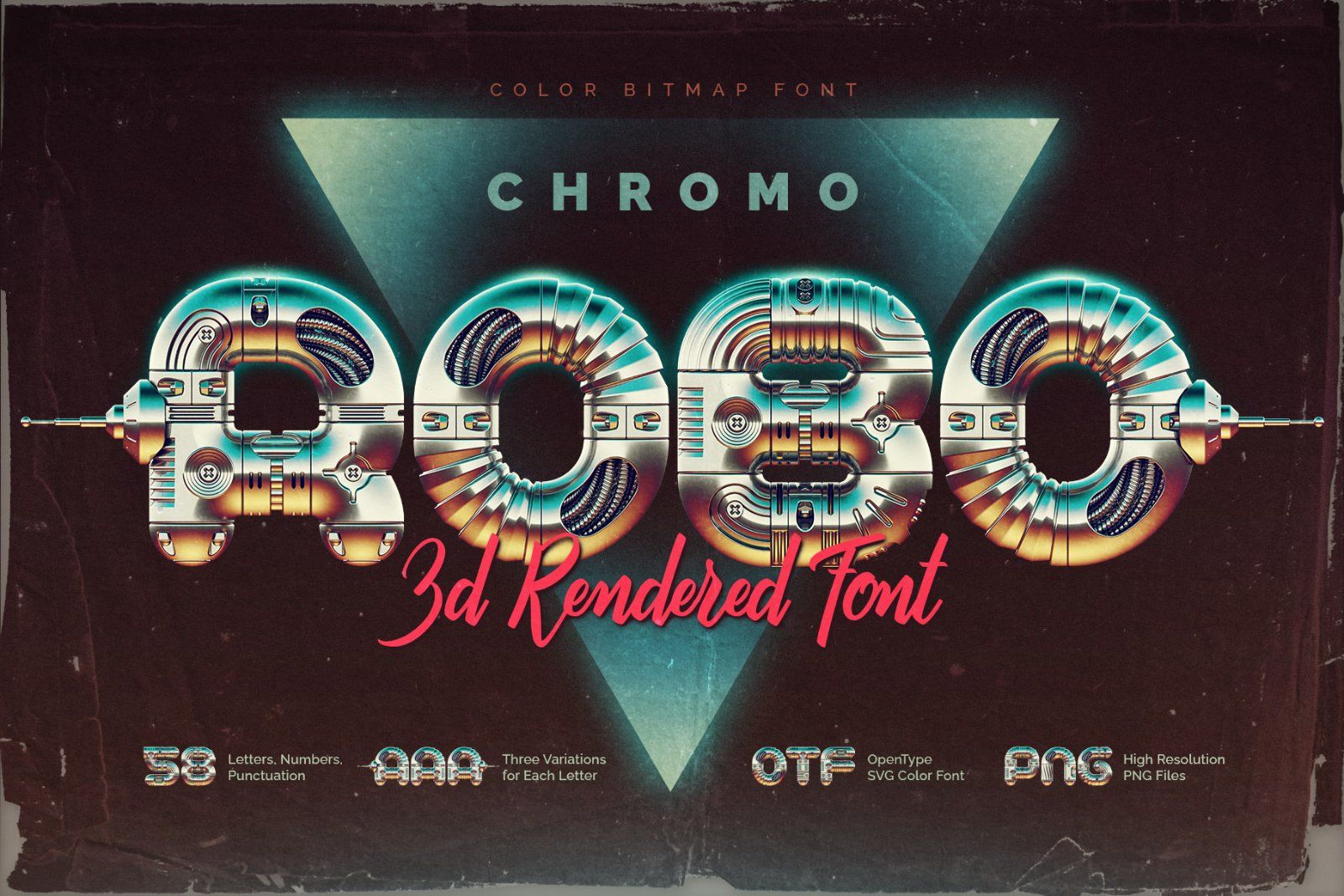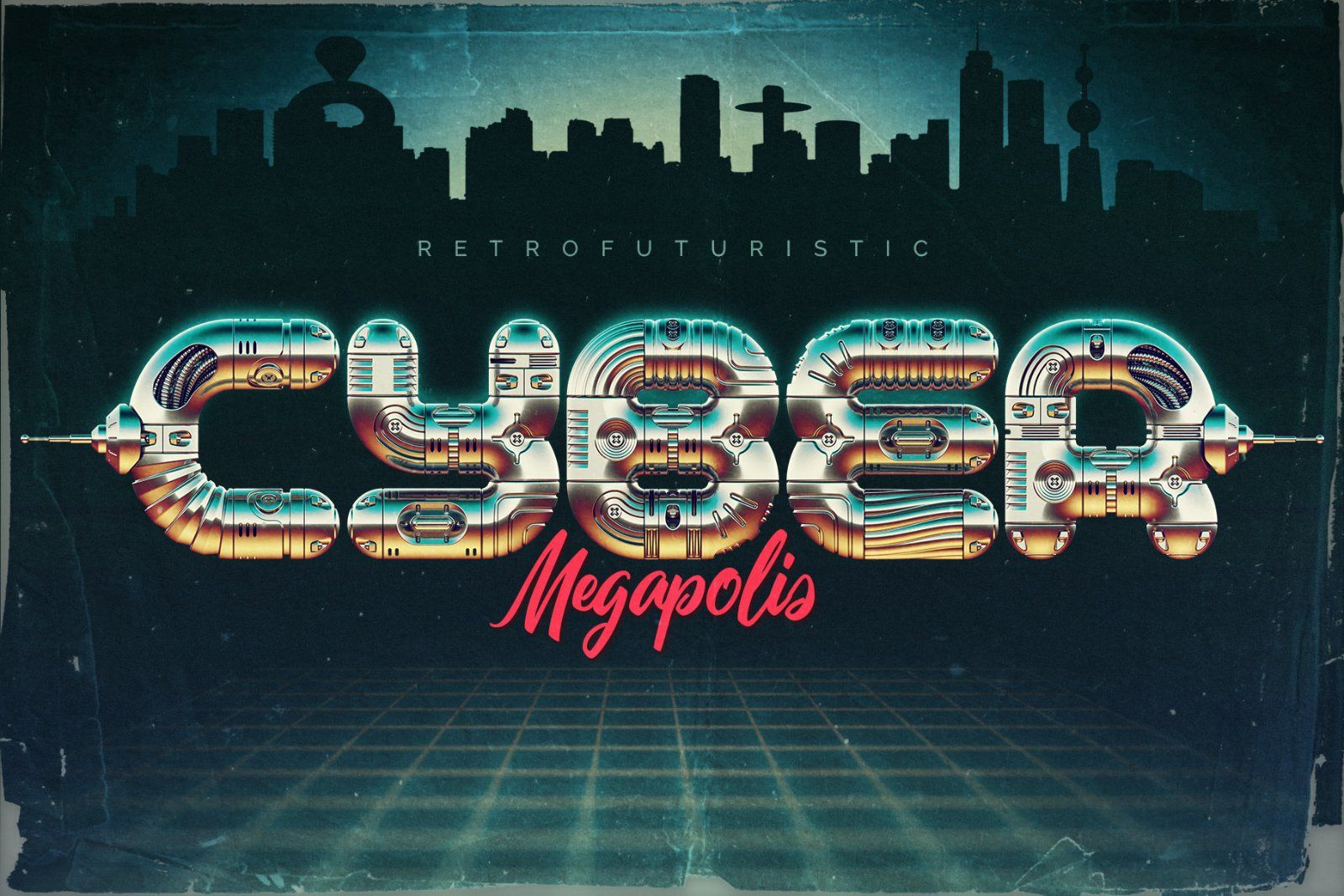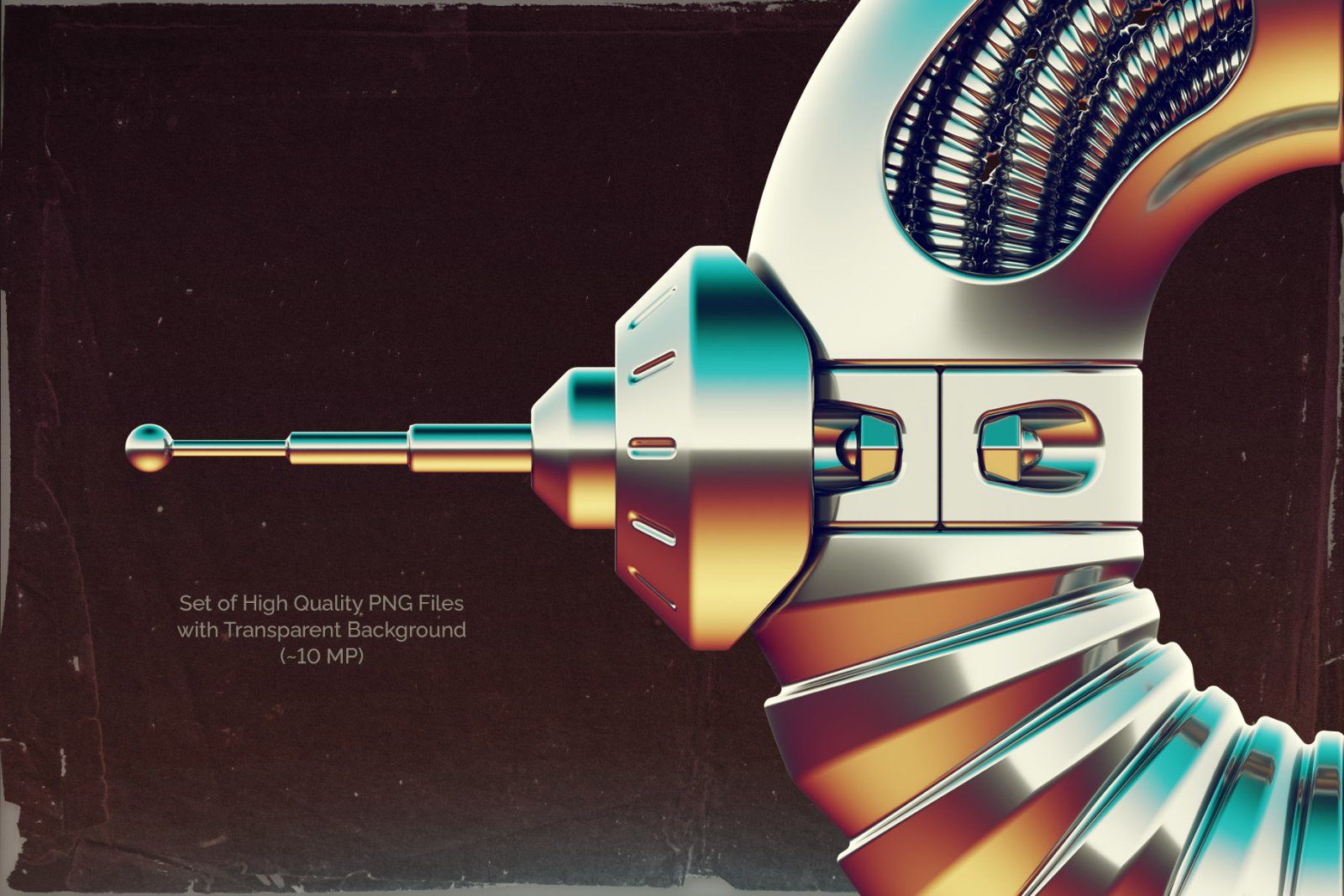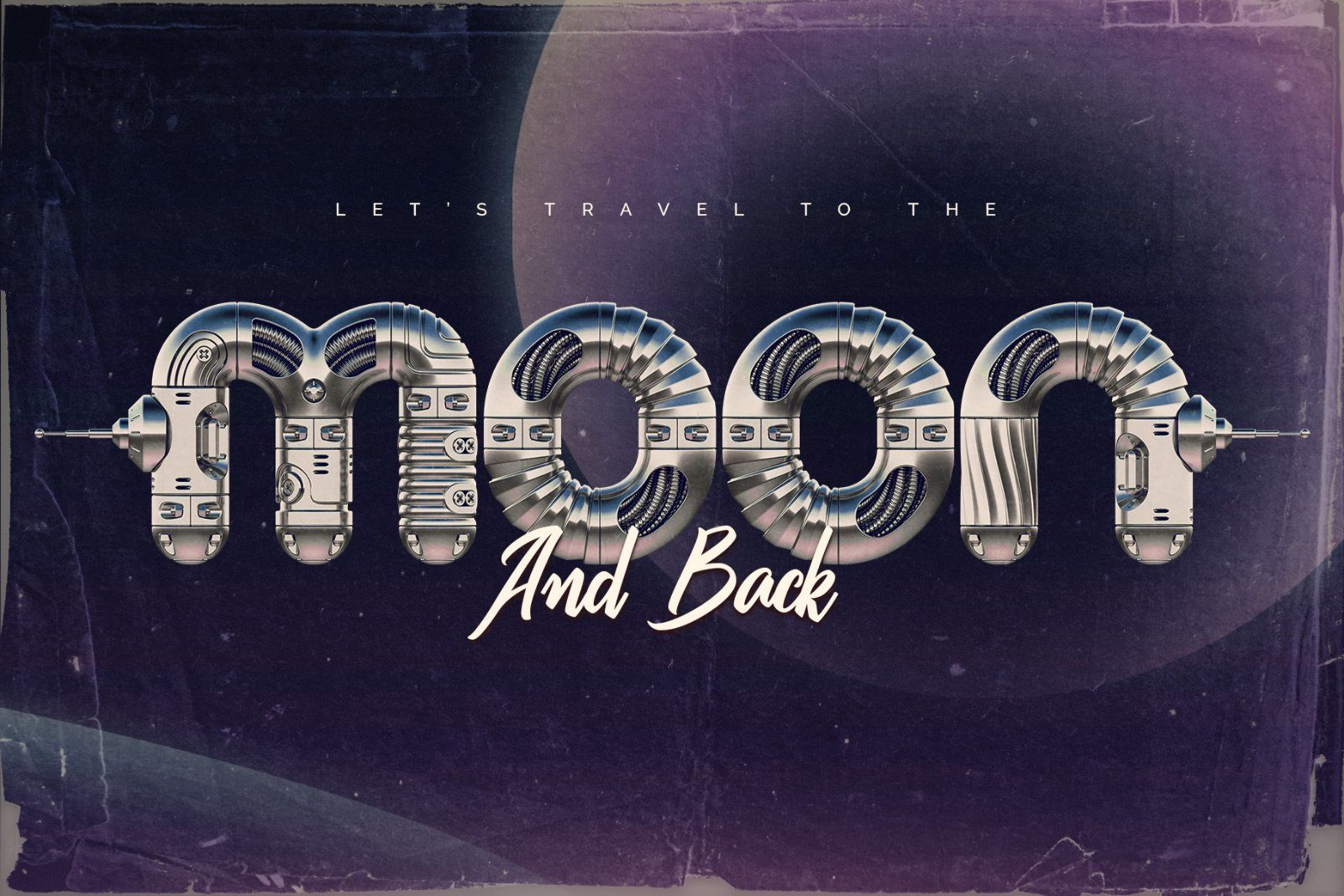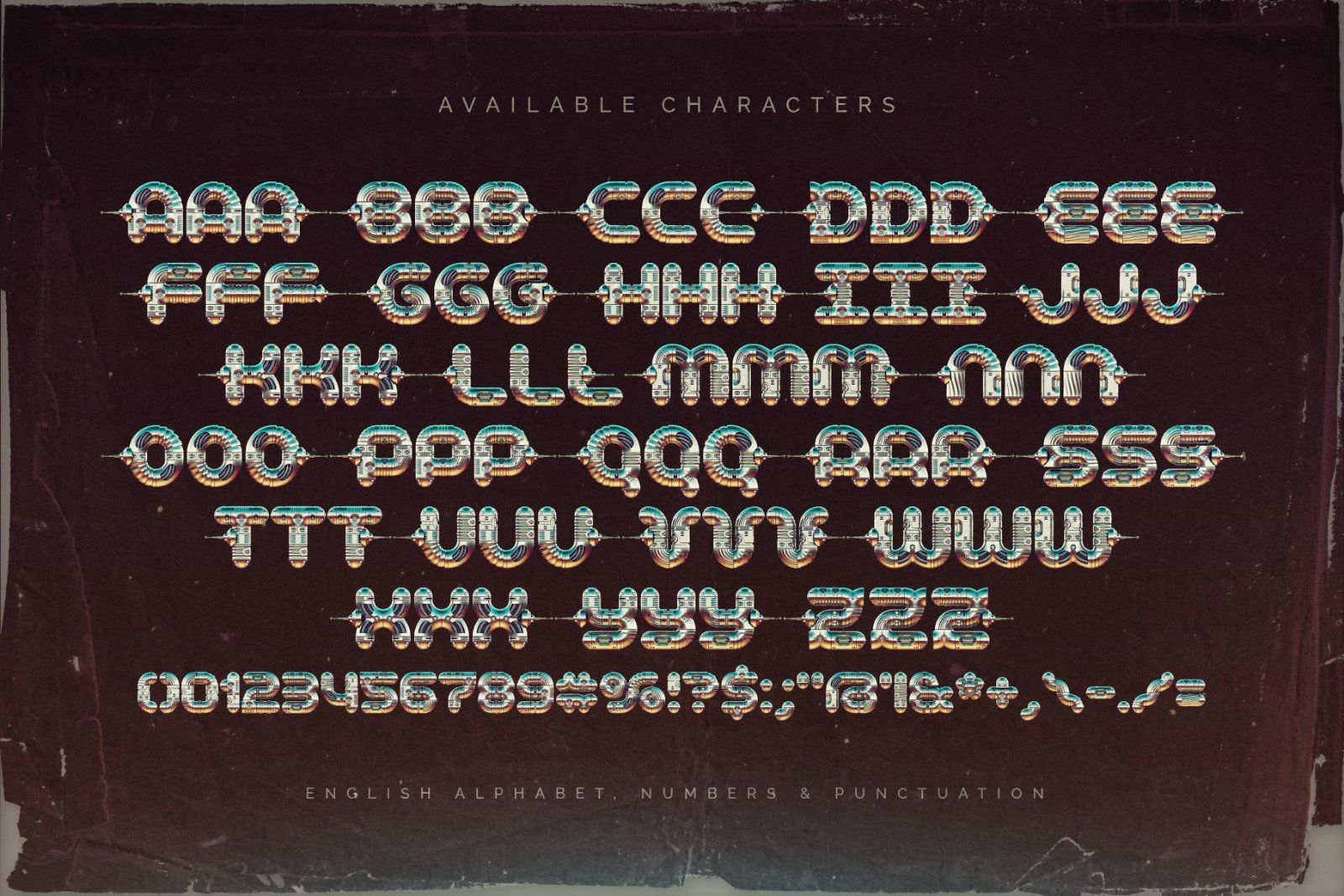
This 3D-rendered display font features a vintage chrome design inspired by retro robot aesthetics of the 1980s. With a glossy, metallic finish and bold, futuristic letterforms, it evokes classic sci-fi and arcade themes. Perfect for tech, cyberpunk, or nostalgic projects needing a strong mechanical feel.
Each letter has three variations with antennas on different sides (can be reached via "Glyphs" panel). Consider that the font supports only the English language and basic punctuation. Be sure to review the included screenshot for a complete list of available characters.